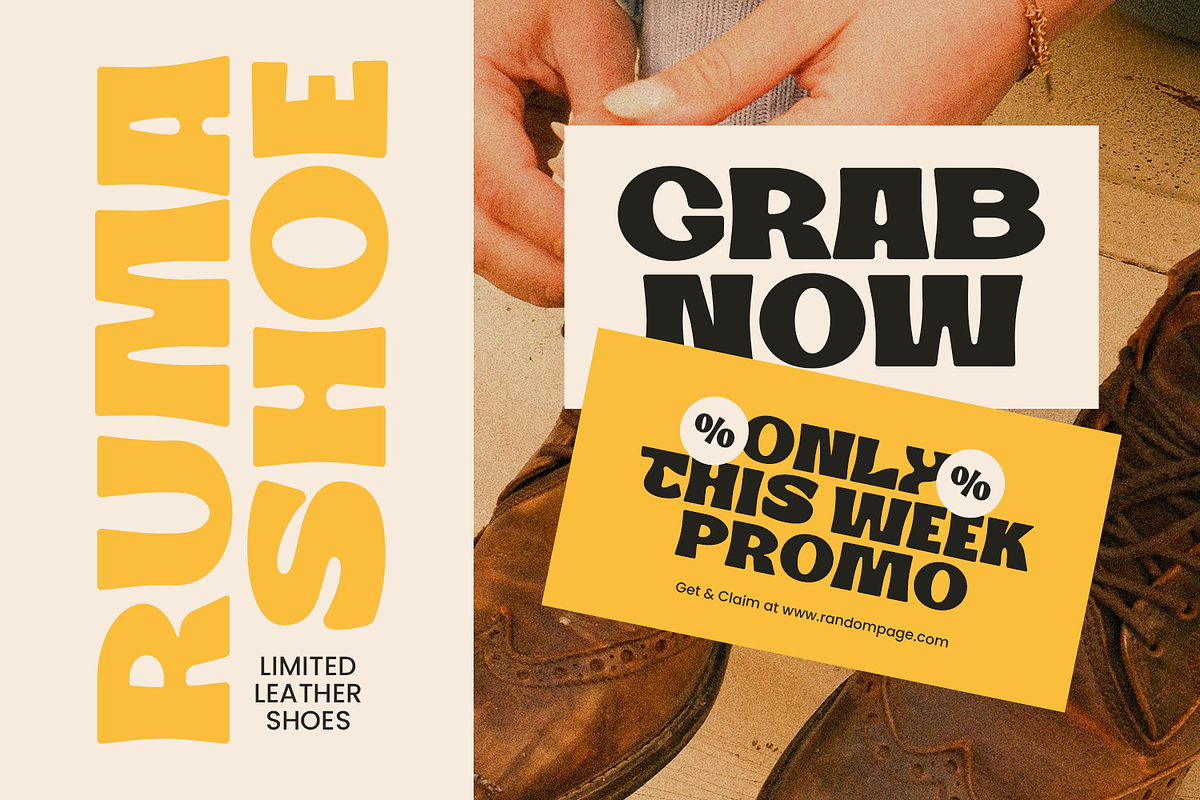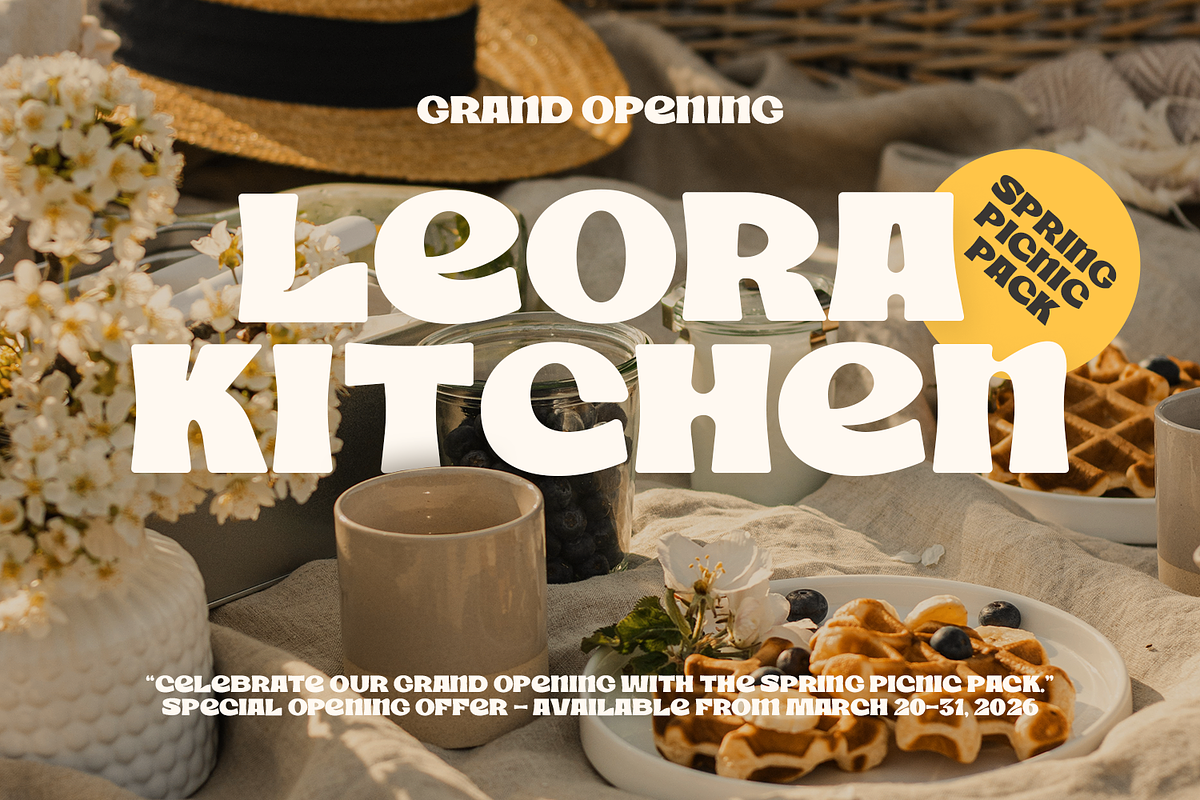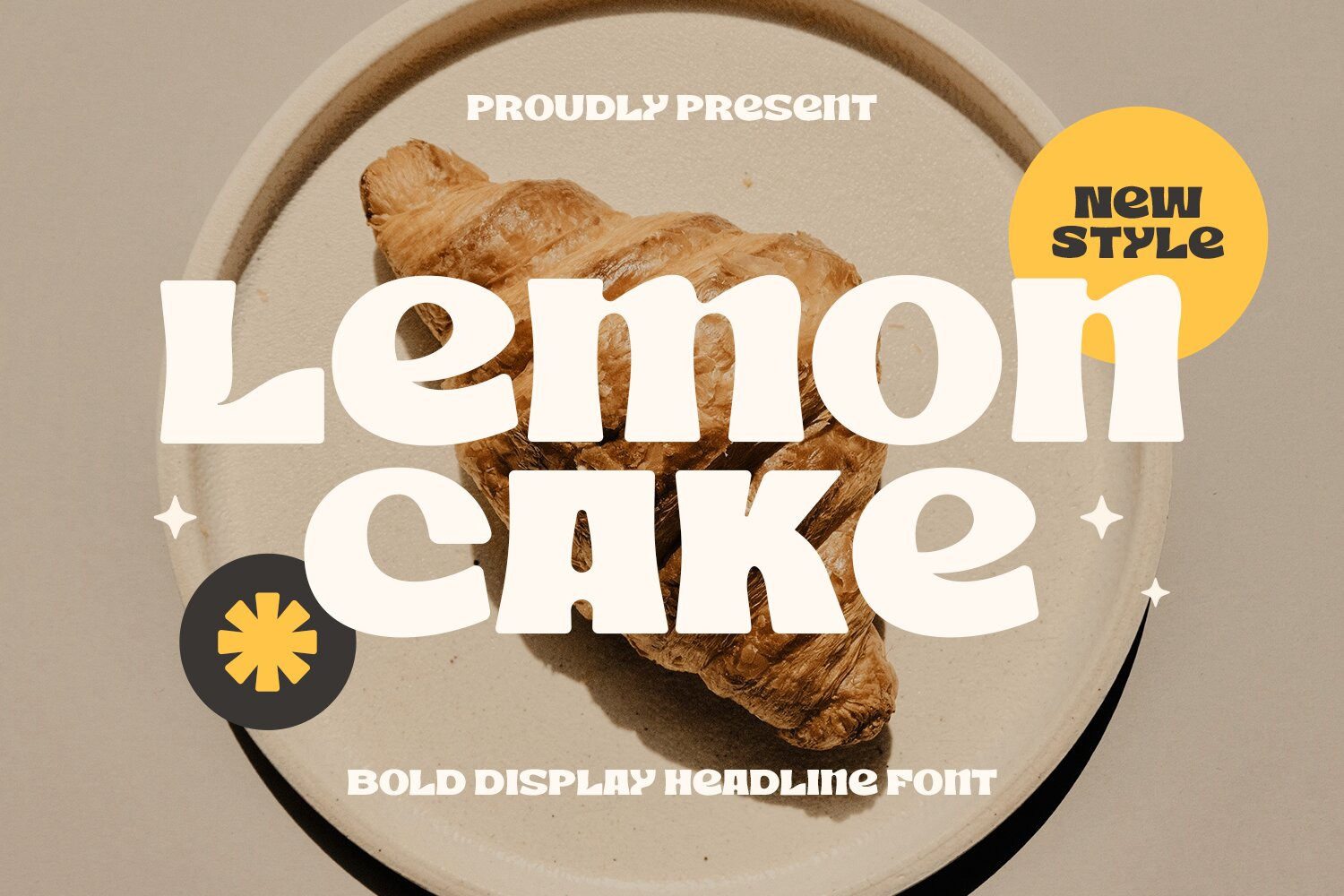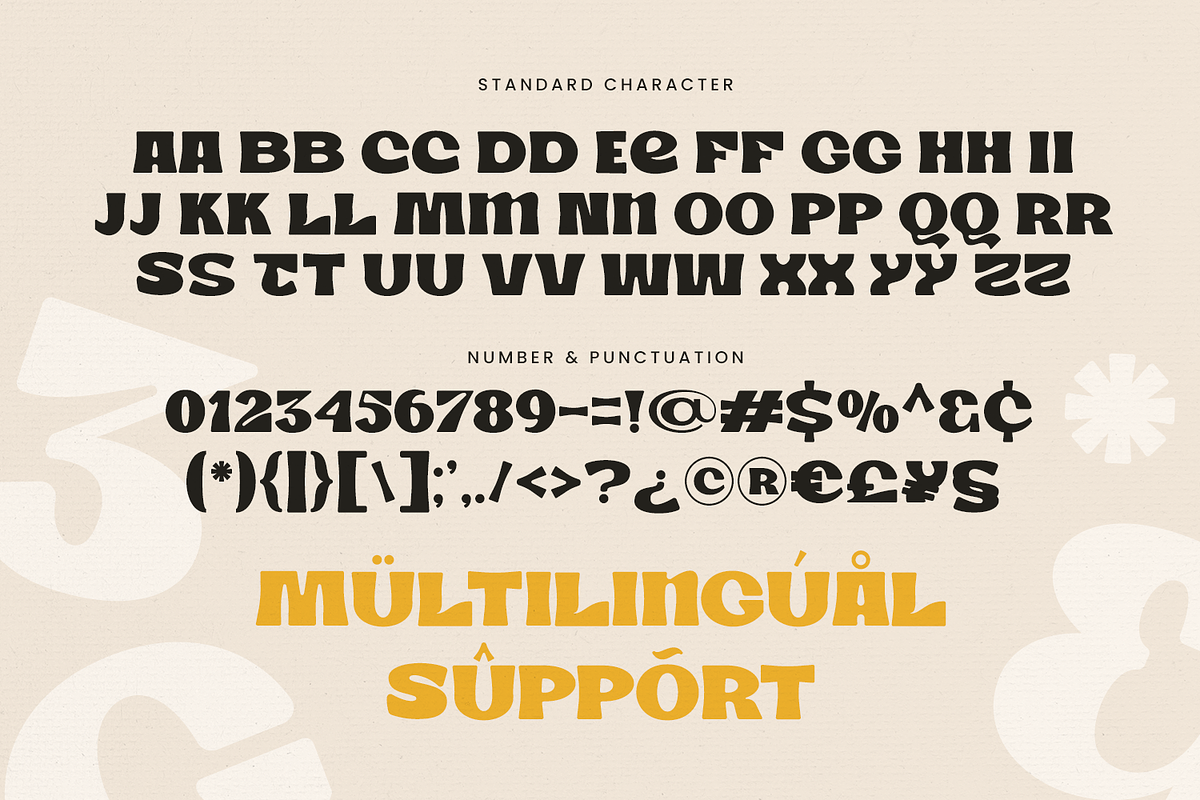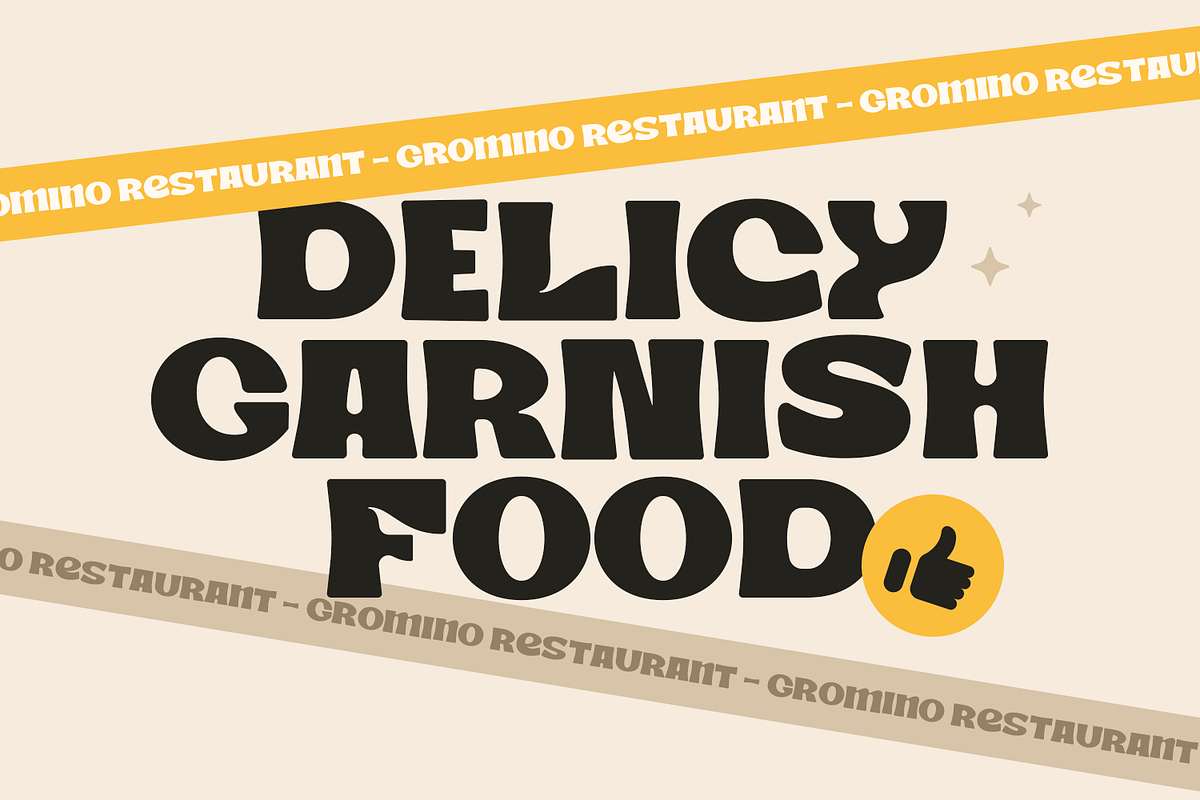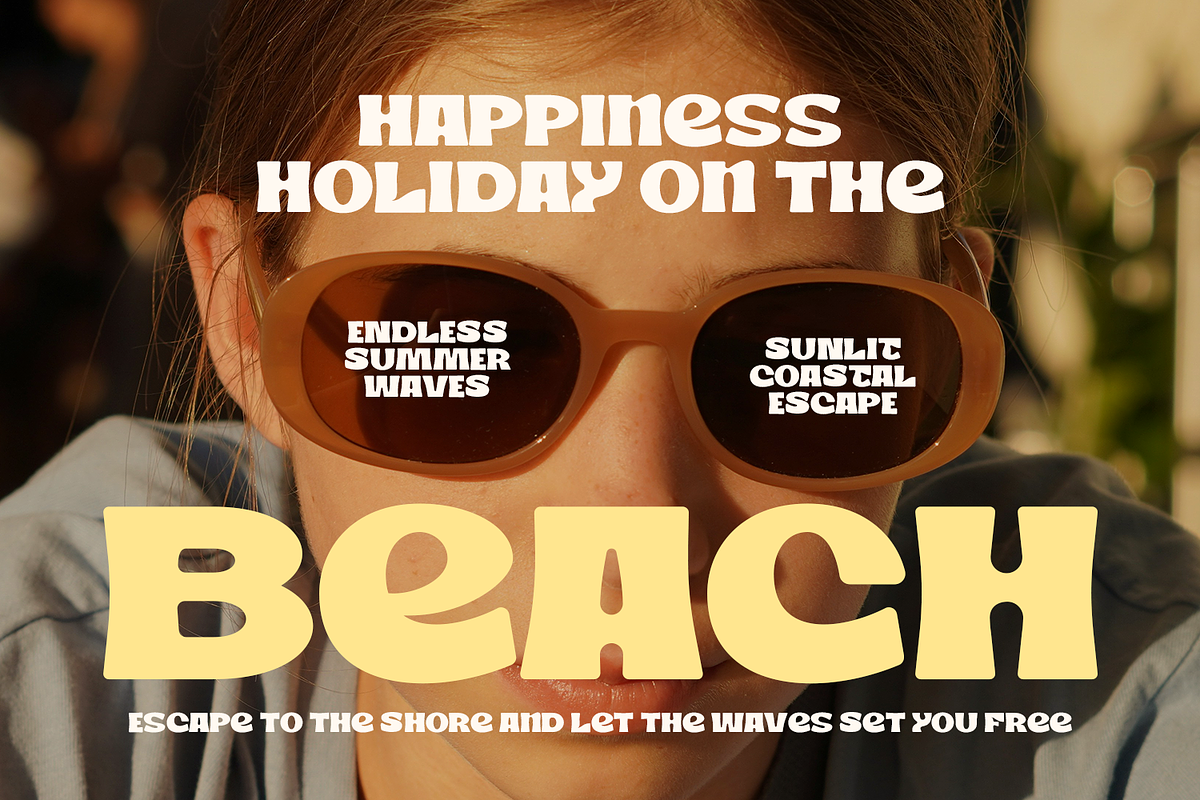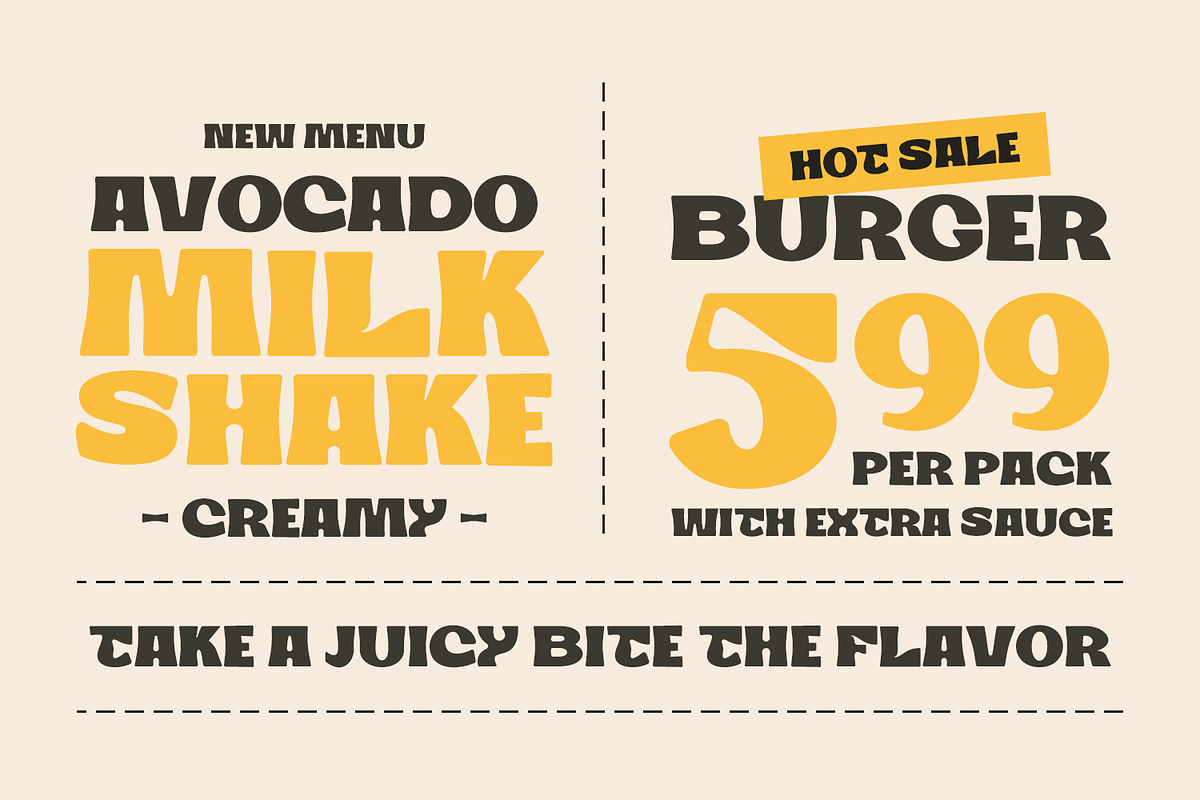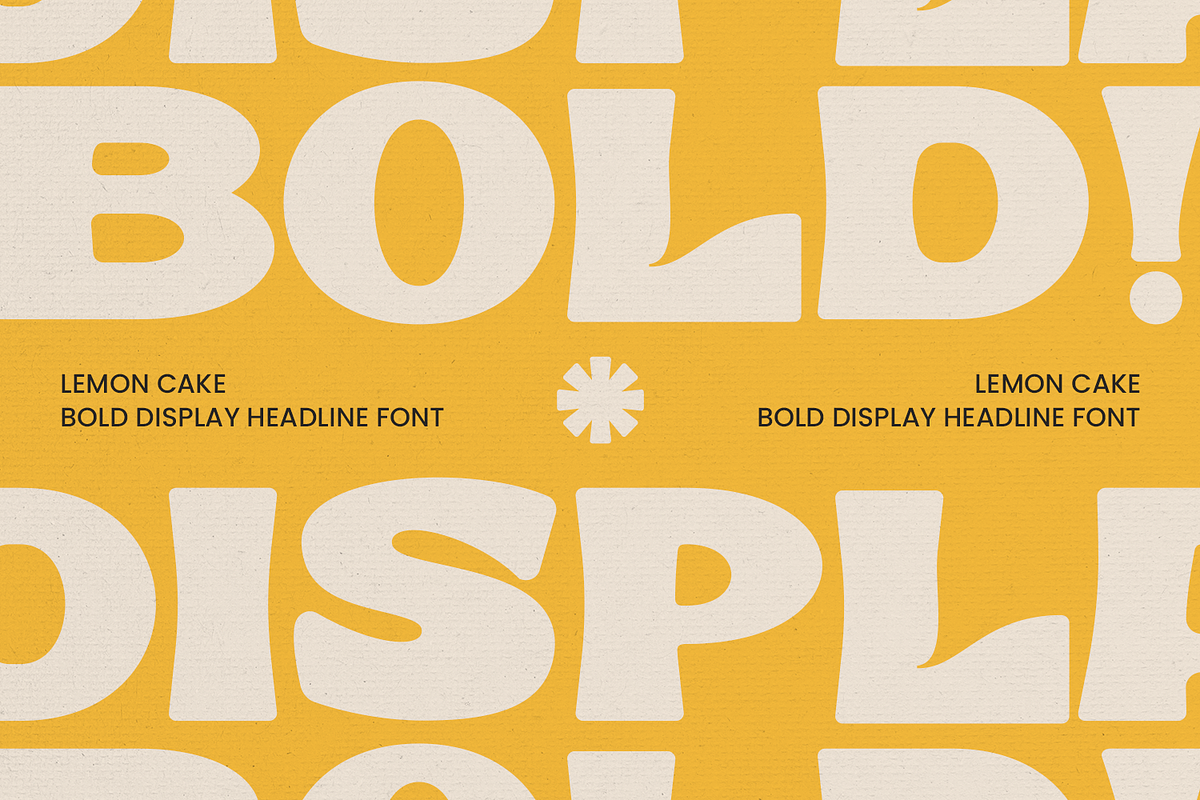
LEMON CAKE - Food Font
Lemon Cake – Food Font is a playful and charming typeface inspired by sweet treats and joyful culinary moments. Its soft curves and friendly letterforms create a delightful visual flavor, making it perfect for food-related designs that need a warm and inviting touch.
Designed especially for food branding, Lemon Cake works beautifully for bakery logos, café menus, dessert packaging, restaurant branding, and cooking-themed projects. Its fun and appetizing style instantly captures attention and adds personality to any layout.
This font brings a cheerful and fresh aesthetic that pairs well with both modern and handmade designs. Whether used for labels, posters, social media graphics, or recipe cards, Lemon Cake enhances visual appeal while maintaining clear readability.
Lemon Cake performs well across digital and print media, making it suitable for packaging, signage, stickers, and promotional materials. Its friendly character makes it an excellent choice for children’s food products, homemade brands, and creative culinary projects.
- Standard & Multilingual glyphs.
Fonts include multilingual support for; Afrikans, Danish, Dutch, English, Estonian, Filipino, Finnish, French, Friulian, Galician, German, Gusii, Indonesian, Irish, Italian, Luxembourgish, Norwegian Bokmål, Norwegian Nynorsk, Nyankole, Oromo, Portuguese, Romansh, Rombo, Spanish, Swedish, Swiss-German, Uzbek (Latin) Scottish, Swiss, etc.